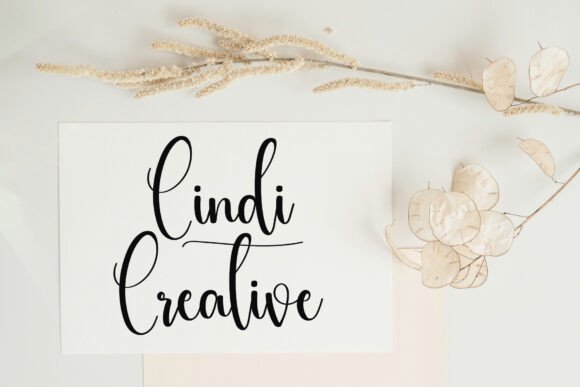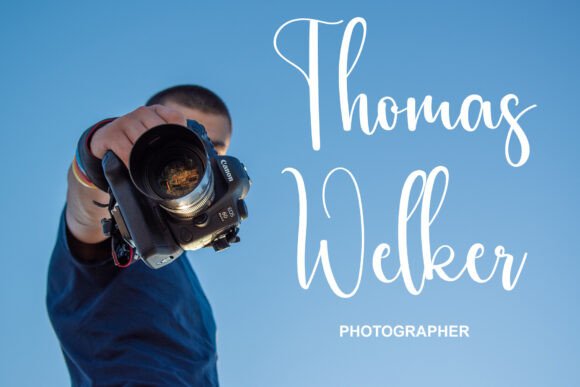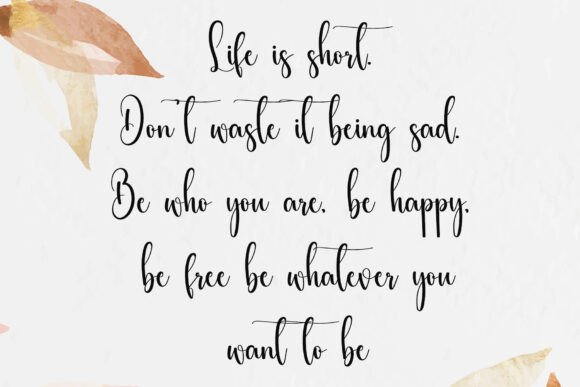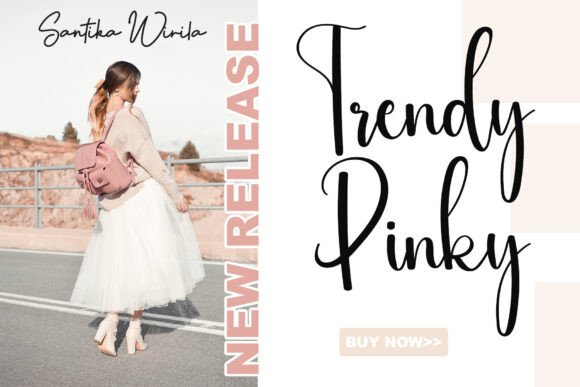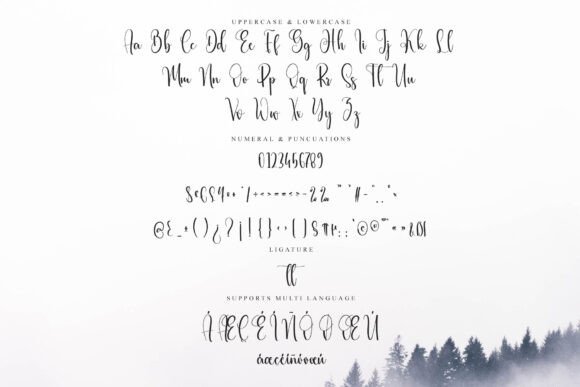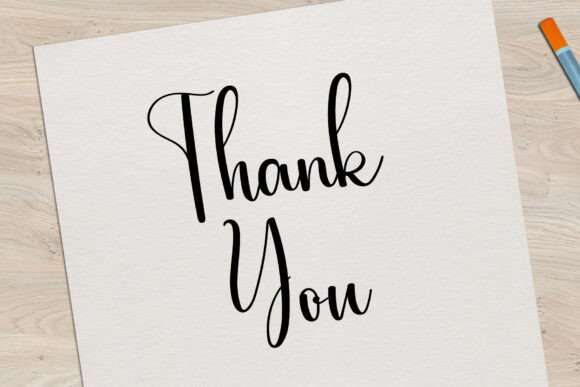
Introducing Hearty Vintage Font: A Delightful Handwritten Font for Whimsical Designs
Are you a designer or crafter looking for a font that exudes warmth, charm, and playfulness? Look no further than Hearty Vintage Font, a delightful handwritten font that is sure to bring a smile to your face. With its playful curves and friendly demeanor, Hearty Vintage is the perfect addition to any design project that seeks to radiate joy and camaraderie.
A Font that Evokes a Sense of Whimsy and Charm
Hearty Vintage Font is a beautifully crafted handwritten font that is brimming with charm and whimsy. Its unique and playful design makes it perfect for a variety of creative projects, from children’s books and party invitations to branding and packaging designs. The font’s friendly and approachable demeanor is sure to appeal to a wide range of audiences, making it an excellent choice for designers and crafters who want to create engaging and memorable designs.
Perfect for Children’s Books and Party Invitations
One of the standout features of Hearty Vintage Font is its ability to evoke a sense of childhood wonder and excitement. Its playful and whimsical design makes it perfect for children’s books, where it can be used to bring stories to life and create engaging and interactive experiences for young readers. The font is also ideal for party invitations, where it can add a touch of warmth and personality to your designs. Whether you’re creating invitations for a birthday party, baby shower, or other celebration, Hearty Vintage Font is sure to make your designs stand out.
Adding Warmth and Cheerfulness to Your Designs
Hearty Vintage Font is more than just a font – it’s a design element that can add warmth and cheerfulness to any project. Its friendly and approachable design makes it perfect for creating designs that are inviting and engaging, whether you’re working on a branding project, packaging design, or social media graphics. The font’s playful curves and whimsical charm are sure to bring a smile to your audience’s face, making it an excellent choice for designers and crafters who want to create designs that resonate with their audience.
Key Features of Hearty Vintage Font
- Handwritten design: Hearty Vintage Font is a beautifully crafted handwritten font that adds a personal touch to your designs.
- Playful curves: The font’s playful curves and whimsical design make it perfect for creating engaging and interactive designs.
- Warm and cheerful: Hearty Vintage Font is designed to evoke a sense of warmth and cheerfulness, making it perfect for designs that seek to radiate joy and camaraderie.
- Versatile: The font is versatile and can be used for a wide range of design projects, from children’s books and party invitations to branding and packaging designs.
Tips for Using Hearty Vintage Font
Here are a few tips for using Hearty Vintage Font in your designs:
- Pair with bold fonts: Pair Hearty Vintage Font with bold fonts to create visual interest and add depth to your designs.
- Use in combination with illustrations: The font pairs perfectly with illustrations and graphics, making it ideal for designs that feature custom artwork.
- Experiment with colors: Hearty Vintage Font looks great in a variety of colors, so don’t be afraid to experiment and find the perfect hue for your design.
Hearty Vintage Font is a delightful handwritten font that is sure to bring a touch of whimsy and charm to your designs. With its playful curves and friendly demeanor, it’s perfect for designers and crafters who want to create engaging and memorable designs that radiate warmth and cheerfulness. Whether you’re working on a children’s book, party invitation, or branding project, Hearty Vintage Font is an excellent choice. So why not give it a try and see how it can elevate your designs?